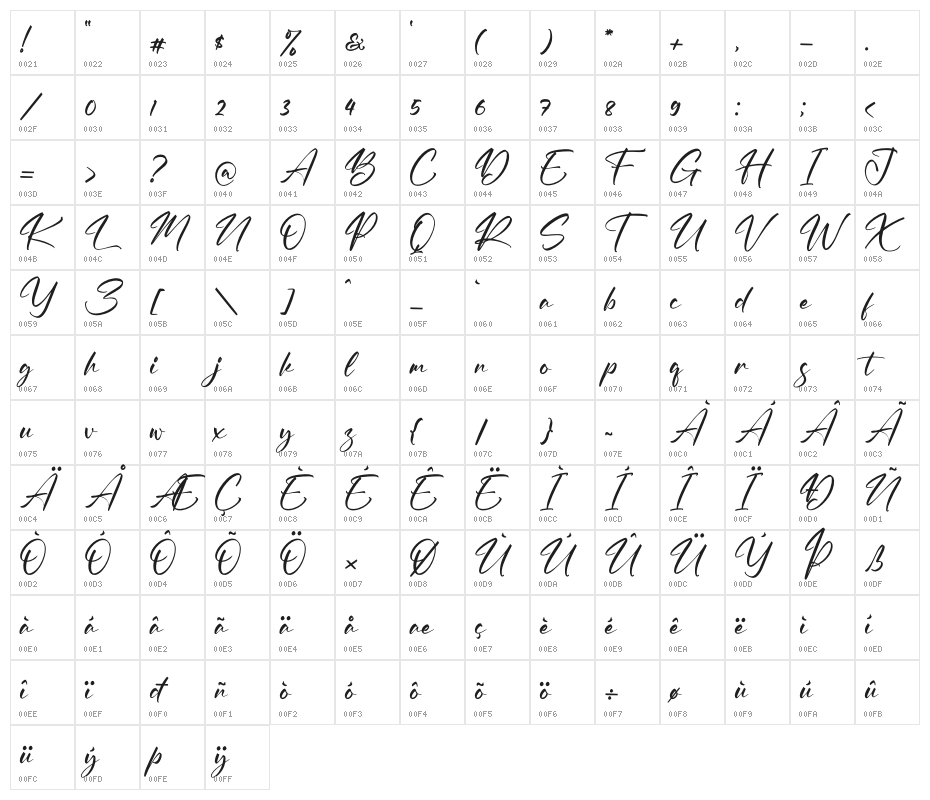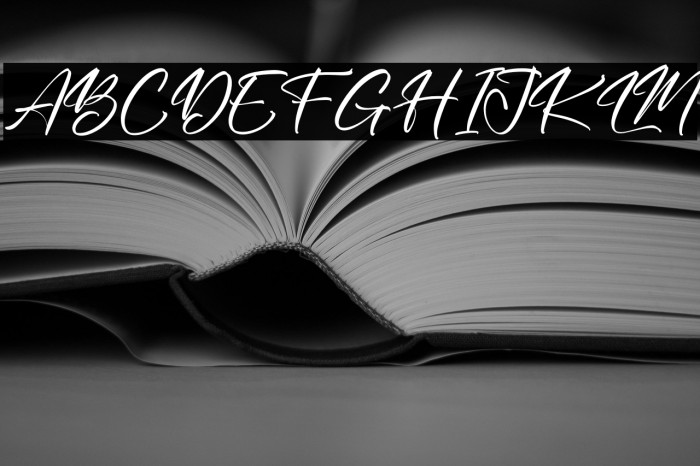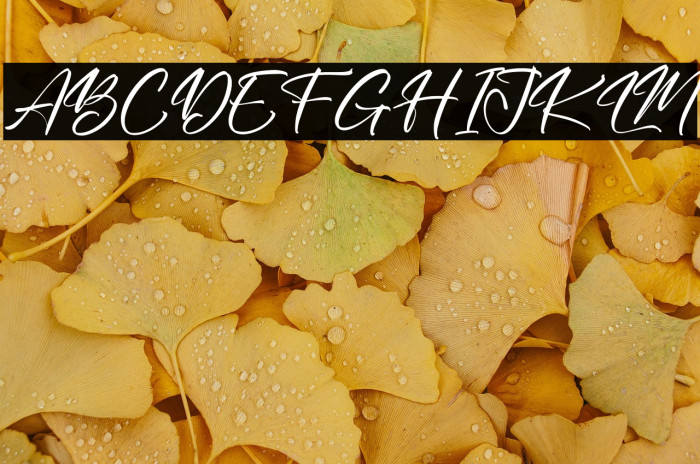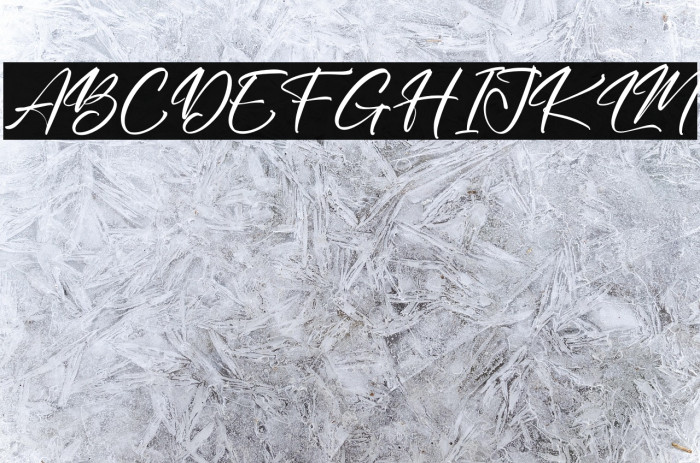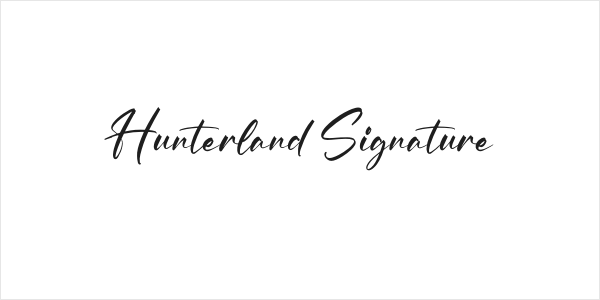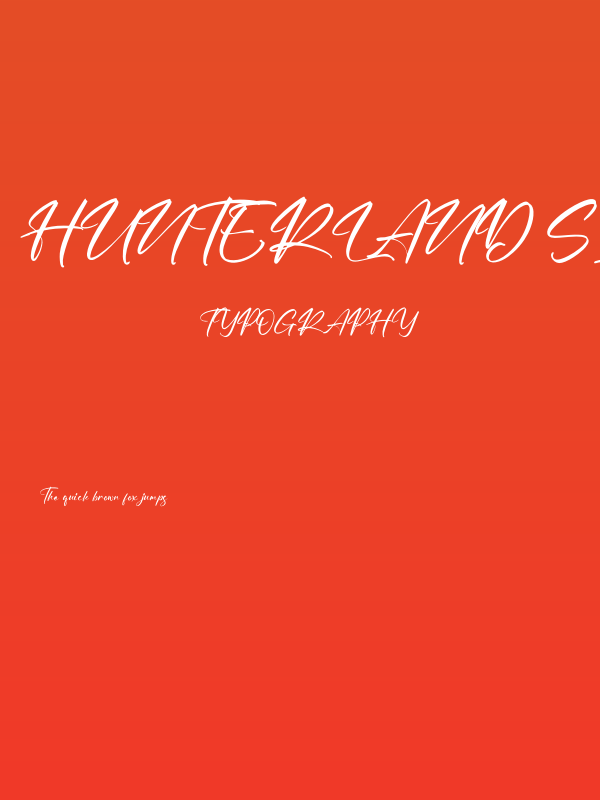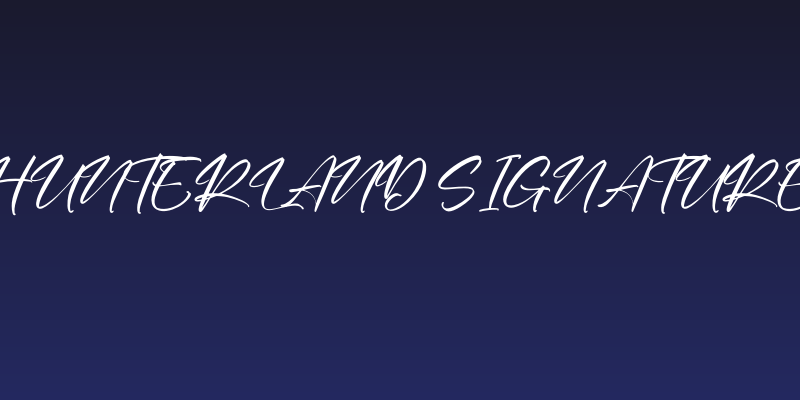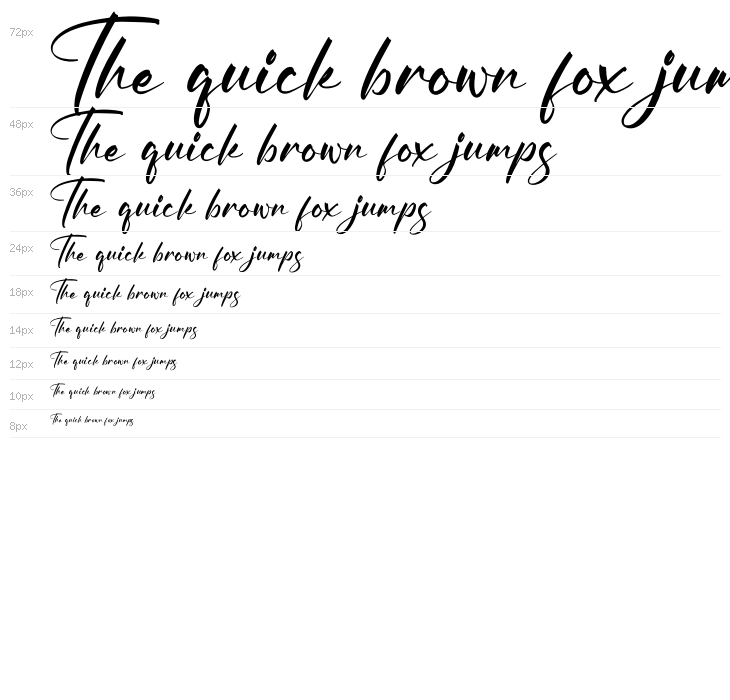
Hunterland Signature Font
Hunterland Signature Description
A flowing, cursive script font with a handwritten signature style, featuring smooth, connected strokes and varying thickness for a natural, elegant appearance. The uppercase and lowercase letters are distinct, with expressive loops and swashes, and the numerals and punctuation maintain the same fluidity.
| Overall Style | Decorative, Modern, Handwritten |
| Use Case | Signatures, Logos, Invitations, Branding |
| Proposed Projects | Personal branding, wedding invitations, logos, social media graphics, greeting cards. |